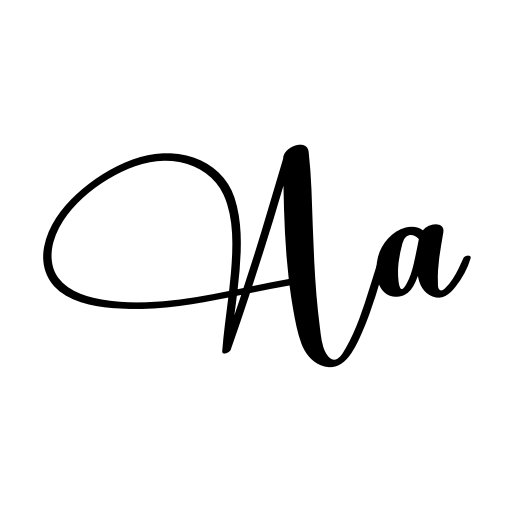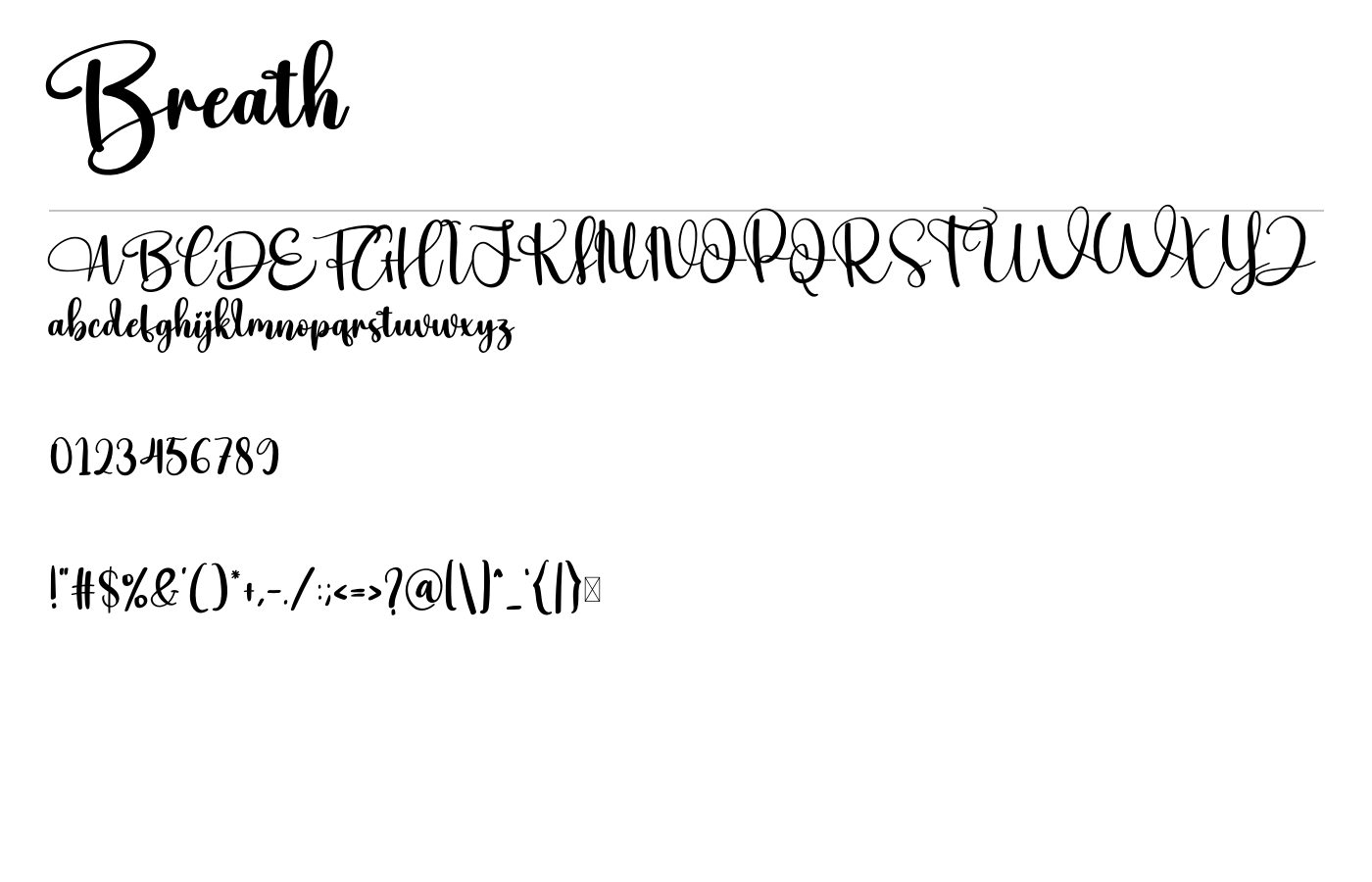
Breath Font is an elegant script typeface with a flowing, handwritten style that features bold, smooth strokes and decorative swashes, especially in the uppercase letters. Its playful yet refined character makes it ideal for creative branding, invitations, and stylish headlines where a touch of personal charm and sophistication is desired. This font works beautifully in designs that aim to convey warmth, friendliness, and artistic flair.
Breath Font